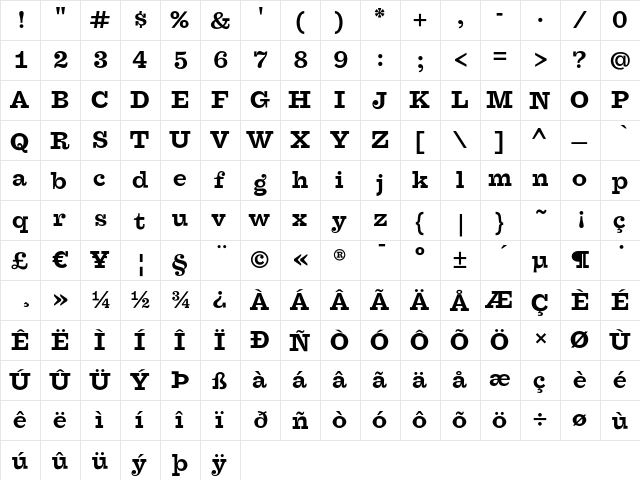
Farao OT Bold
| Foundry | Frantisek Storm, stormtype.com |
| Designer | Frantisek Storm |
Design Context for Farao OT Typeface
Farao OT offers clean, dependable letterforms without strong stylistic allegiance, making it a practical choice for designers who need flexibility. Its bold stroke weight gives it real presence on the page.
Pro Tip: Pair Farao OT with a font of contrasting weight or personality to build a more expressive typographic hierarchy.